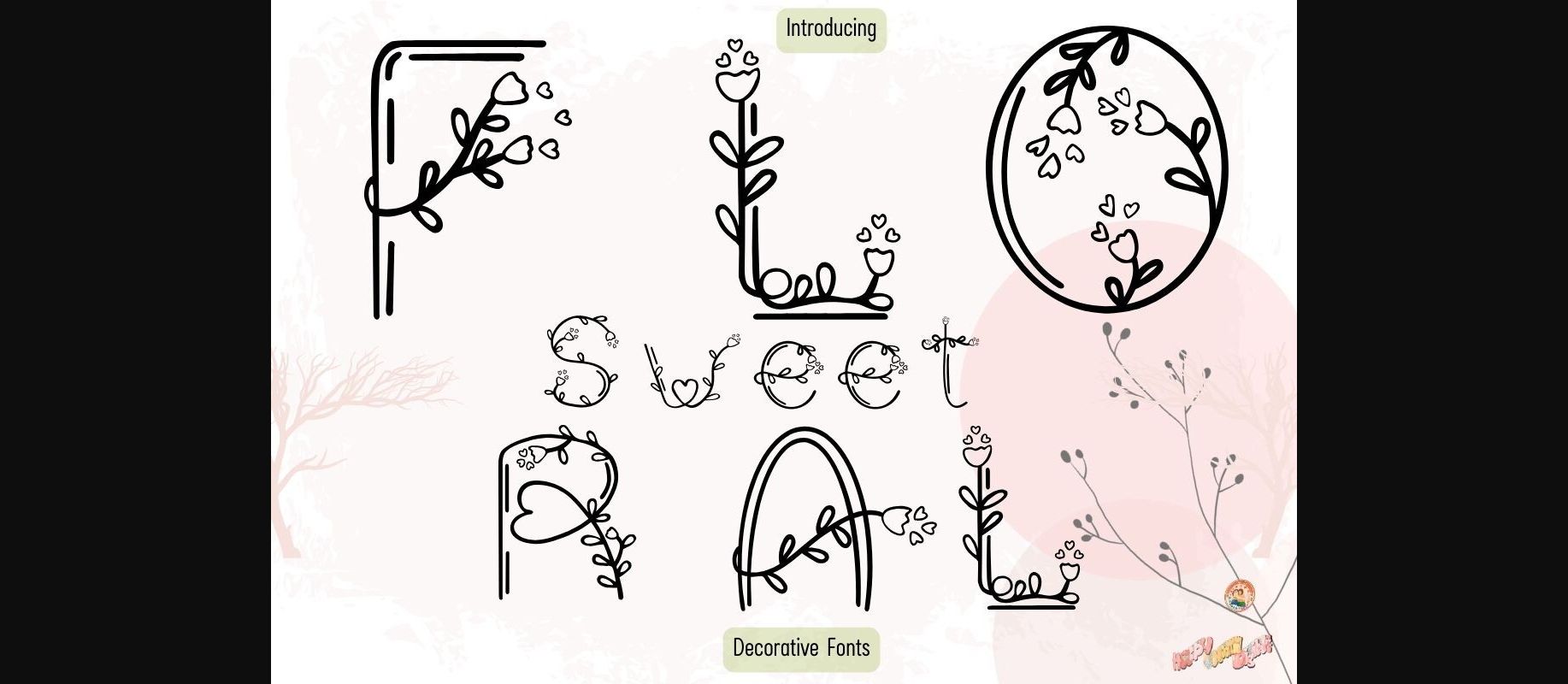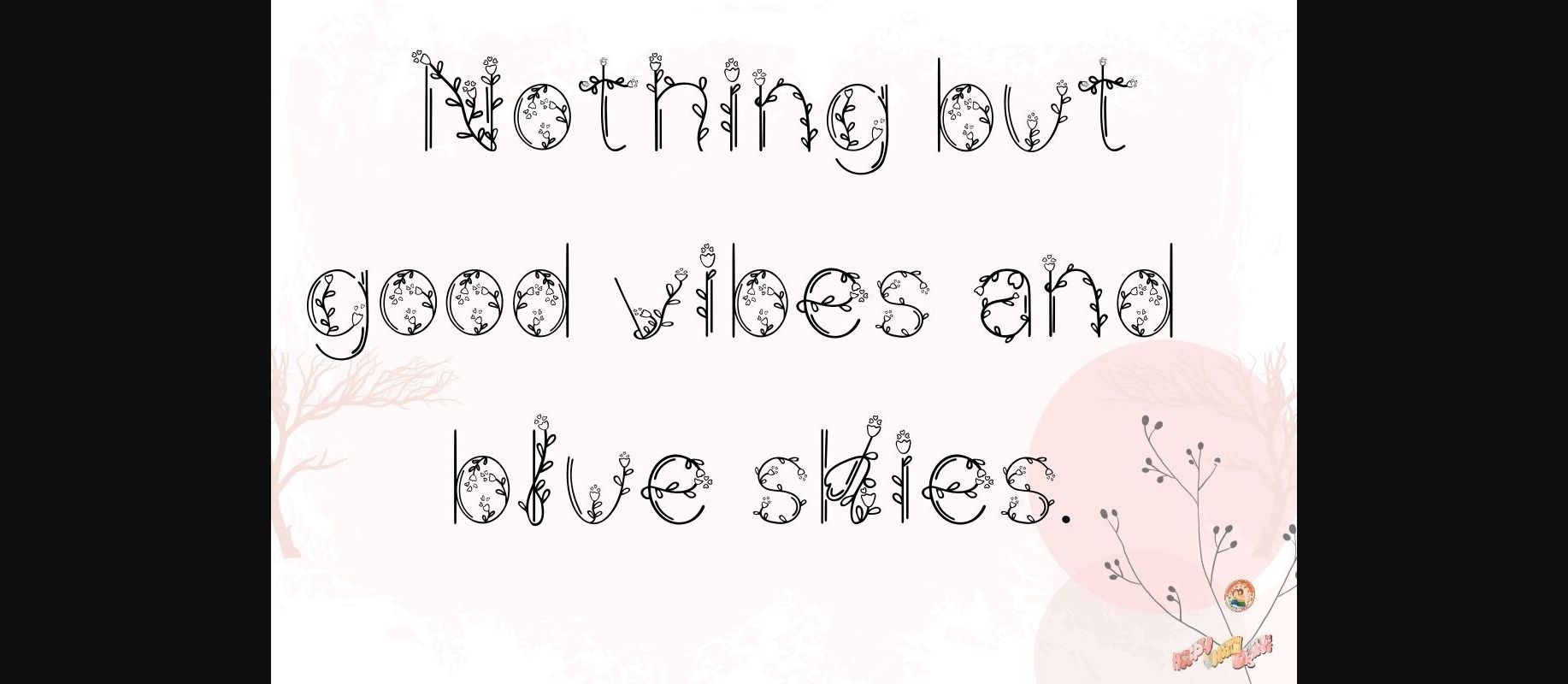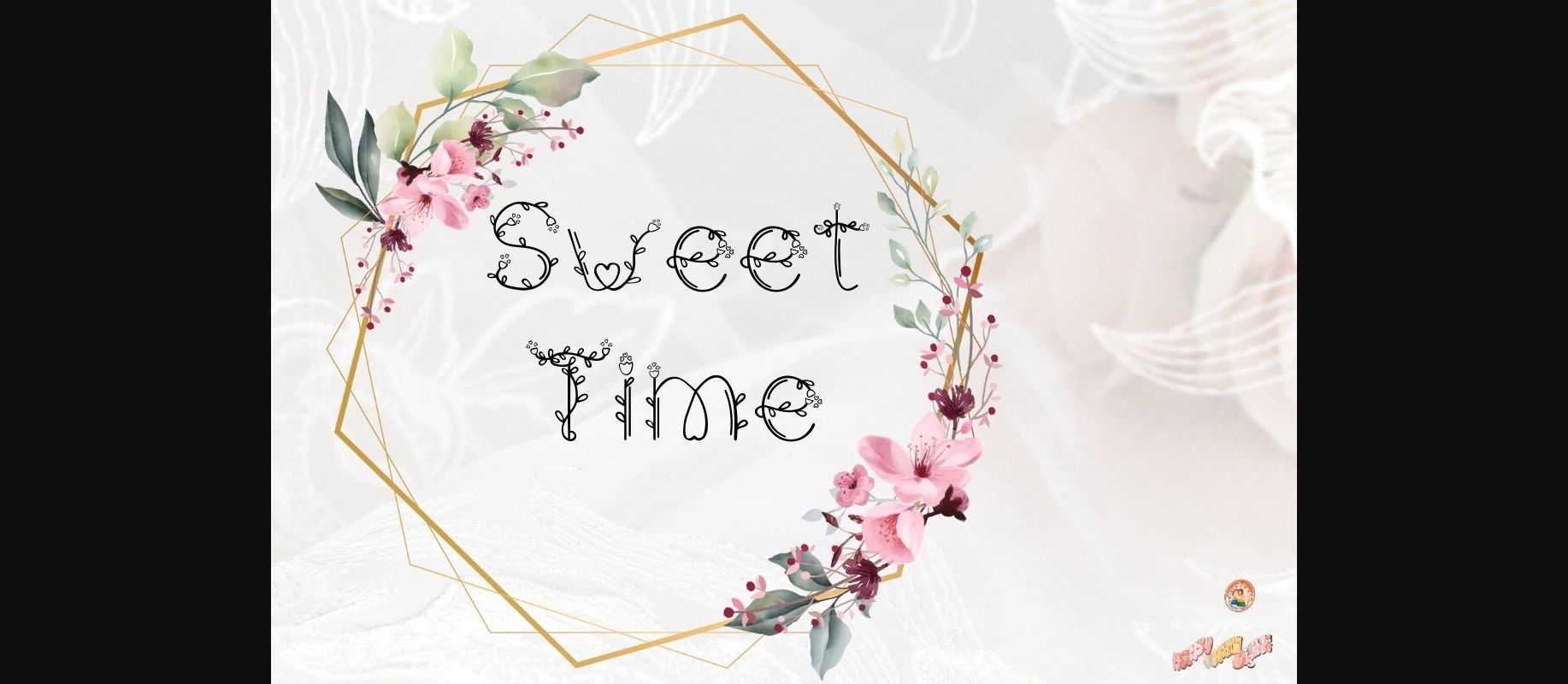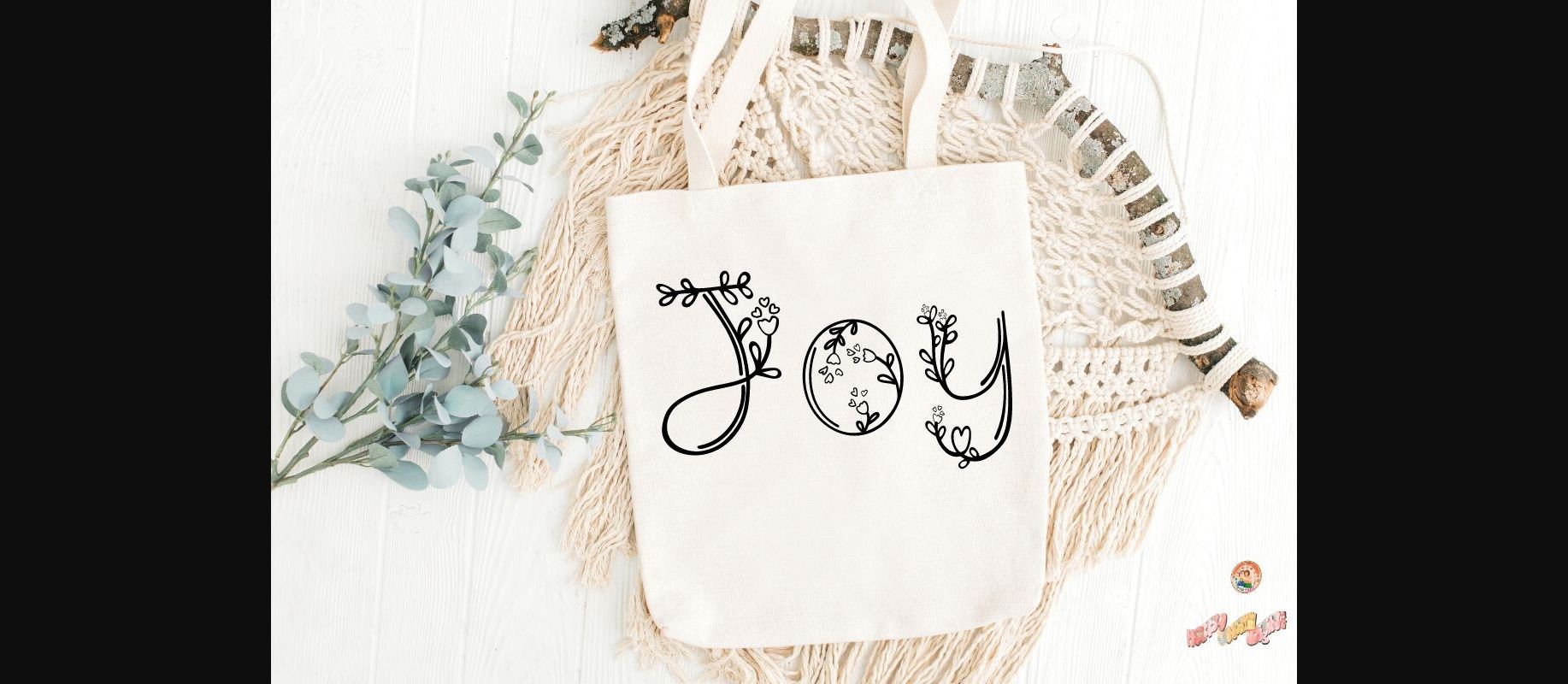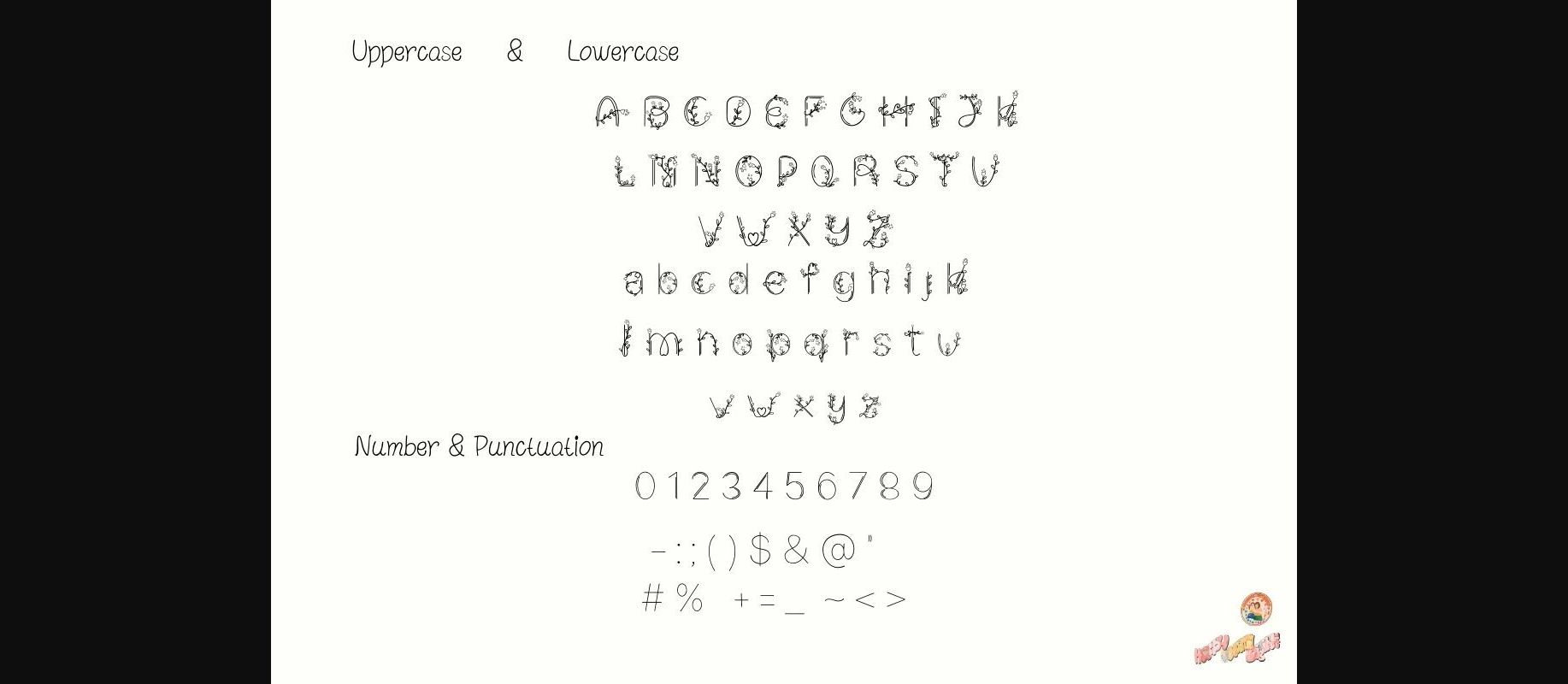
Floral Sweet Font
About Floral Sweet Font
Introducing ‘Floral Sweet font, the Design each letter in a nature flowers beautiful Design. This decorative typeface features delightful elements integrated into each letter. Whether you’re creating holiday cards, gift tags, or seasonal banners,t-shirt and Many more children’s products ‘Floral Sweet Font ’ making it the ideal choice for spreading joy during the holiday season.